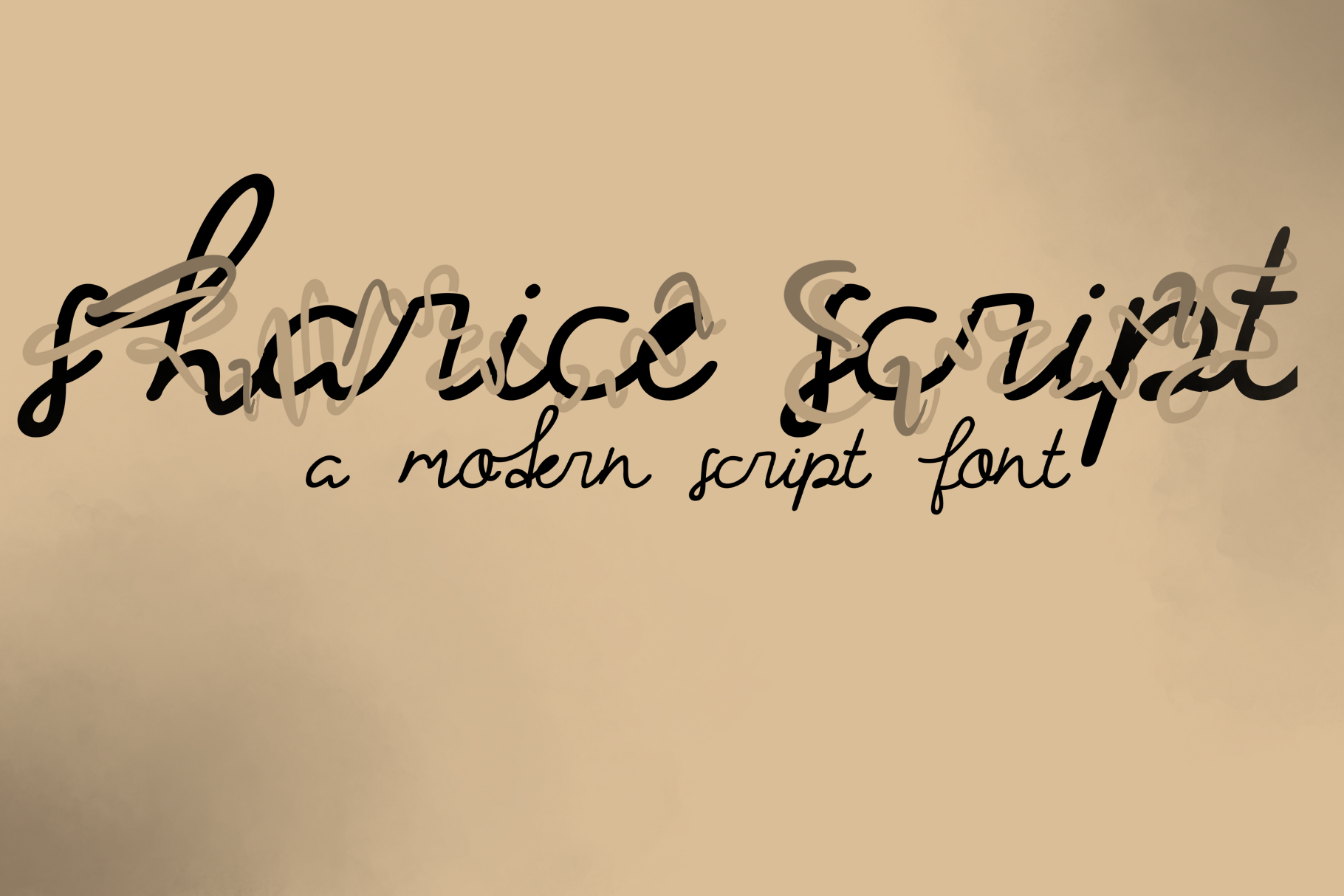
Sharice Script Font
Sharice Script is the perfect minimalist, contemporary font. Great for pairing with serifs for elegant, balanced projects.
Use for product labels, brand logos, handwritten letters, and invitations!